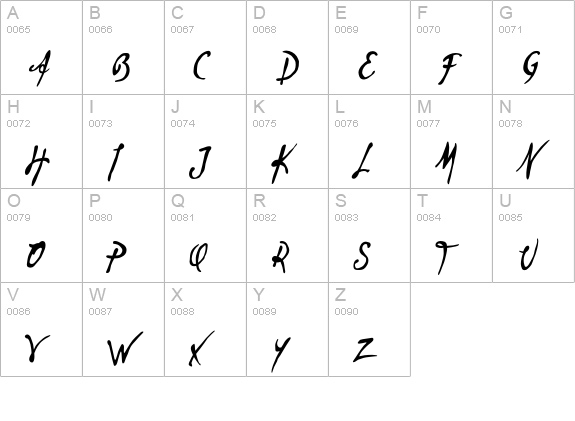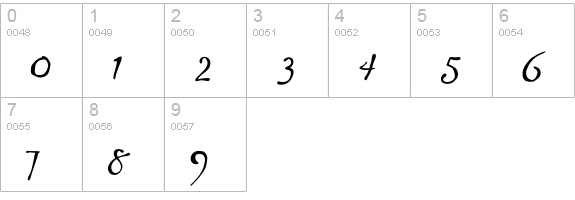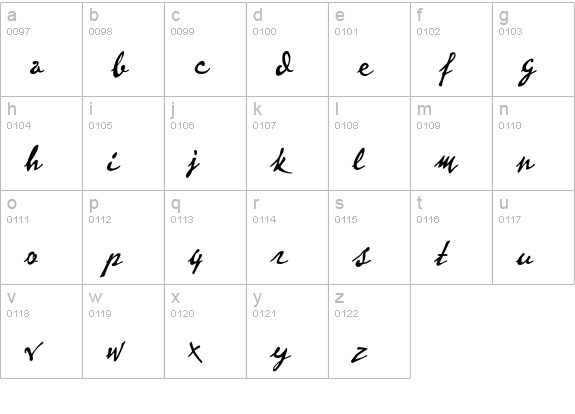
P22Vincent-Regular is the standard, neutral variant in the P22Vincent typeface family \xE2\x80\x94 well suited to general body text, paragraphs, and standard typographic work.
P22Vincent-Regular is a modern and stylish font that exudes a sense of elegance and sophistication. With its clean lines and unique letterforms, this font is perfect for adding a touch of class to any design project. Its versatility allows it to be used in a variety of contexts, whether it be for branding, packaging, advertising, or even personal projects. What sets P22Vincent-Regular apart is not only its aesthetic appeal but also its availability. This font is freely available to download at FontsMarket.com, making it easily accessible to designers and enthusiasts alike. With just a few clicks, you can have this exquisite font at your fingertips, ready to enhance your creations. Designed with attention to detail, P22Vincent-Regular offers a wide range of characters, including uppercase and lowercase letters, numbers, symbols, and punctuation marks. This comprehensive character set ensures that you have all the tools you need to bring your ideas to life. Whether you're working on a professional project or simply looking to add a touch of sophistication to your personal designs, P22Vincent-Regular is the perfect choice. Its timeless appeal and freely available nature make it a must-have font for any typographic enthusiast. Download it today at FontsMarket.com and elevate your designs to new heights.